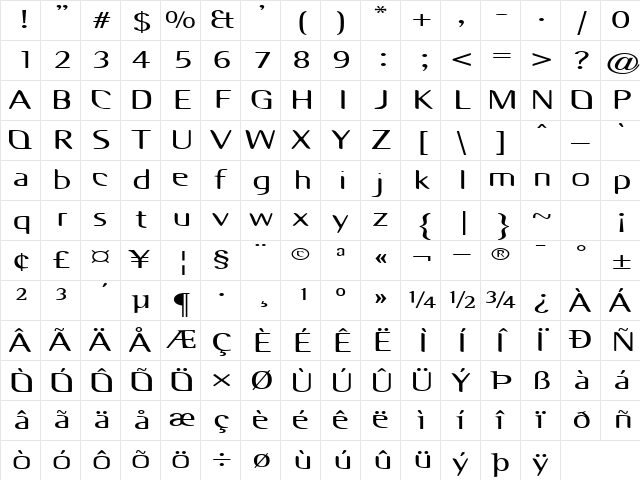
OdysseyExtended Regular
Design Context for OdysseyExtended
OdysseyExtended is a composed and adaptable typeface that performs quietly and consistently across a wide range of design contexts.
Pro Tip: Use OdysseyExtended in both headline and body roles to test its range before committing to a single application.